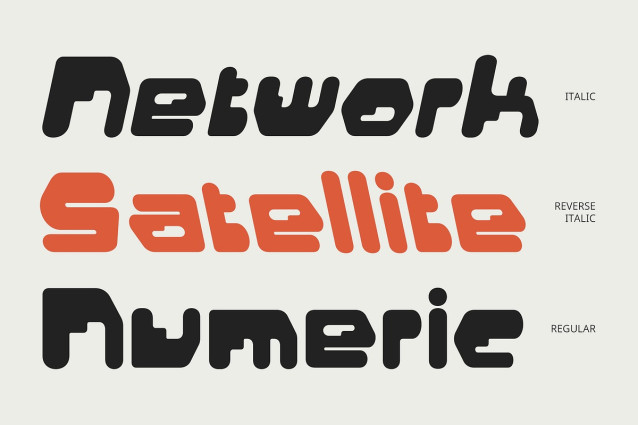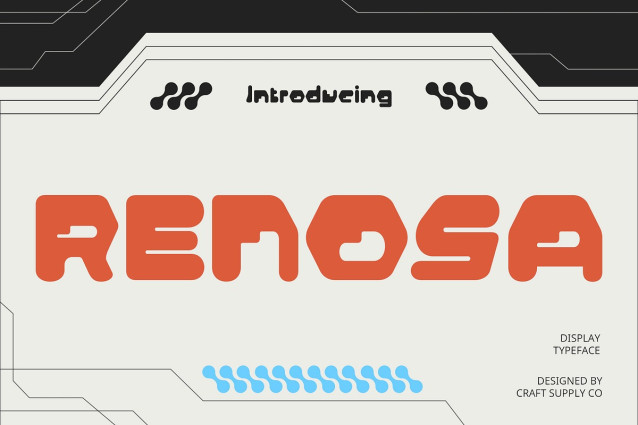
Renosa Font
Renosa Font is a modern display font featuring strong, futuristic letterforms characterized by clean edges and perfectly balanced geometry. Each character is crafted to evoke a sense of advanced technology, making the typeface feel like it belongs on high-resolution screens and digital interfaces.
Bold and Contemporary for Maximum Presence The bold weight of Renosa ensures it commands attention in any context. Its hefty strokes give shapes a sturdy, confident appearance, perfect for headlines, logos, and titles that need to deliver a powerful first impression.
Sharp Geometry Conveys a Sleek, Tech-Forward Vibe With its angular cuts and geometric harmony, Renosa conveys a sleek, cutting-edge aesthetic. The precise alignment of each curve and angle creates a sense of motion and innovation, ideal for brands or projects that want to project a forward-thinking identity.
Versatile for Technology, Sci-Fi, and Innovative Branding Renosa shines in technology-themed designs, sci-fi posters, and digital interfaces where a modern, striking look is essential. Whether you’re building an app UI, crafting a futuristic logo, or designing promotional materials for an electronics brand, Renosa brings a bold, contemporary flair that stands out and resonates with a tech-savvy audience.